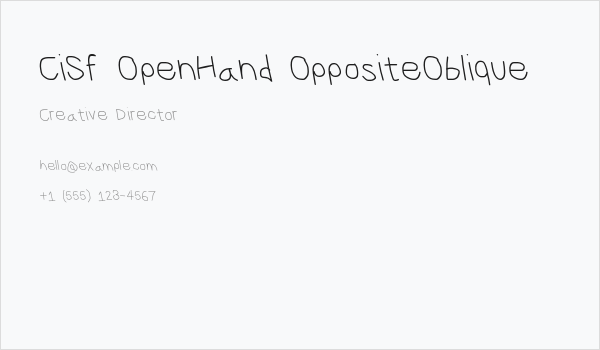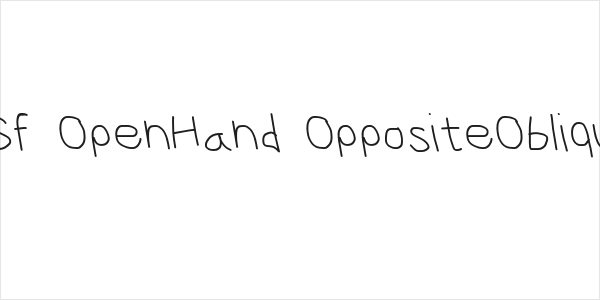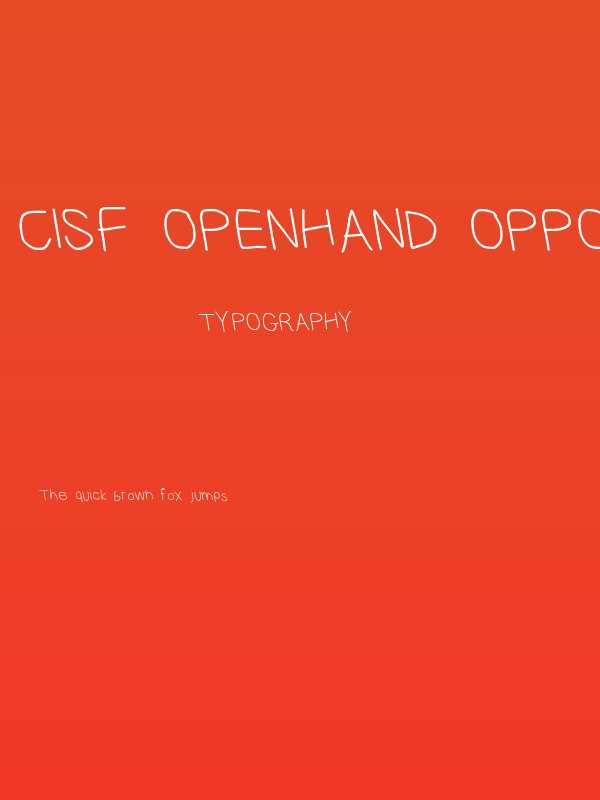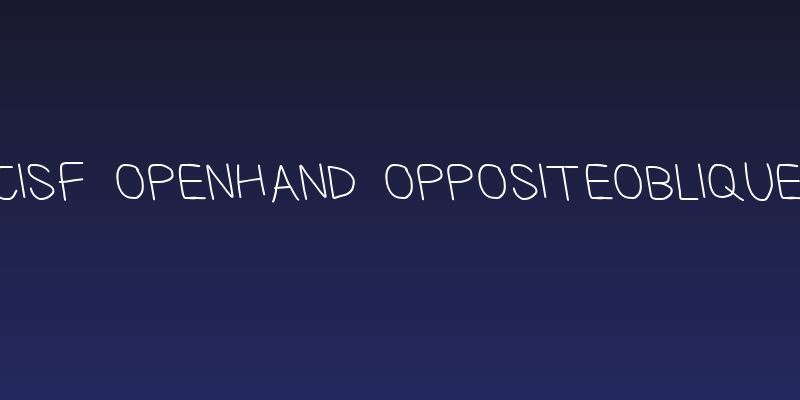
CiSf OpenHand OppositeOblique Font
CiSf OpenHand OppositeOblique Description
This font features a playful and casual handwritten style, characterized by its uneven strokes and slightly tilted letters. The uppercase and lowercase letters maintain a consistent, informal appearance, with rounded edges and a relaxed flow. The numbers and special characters follow the same whimsical design, making the font suitable for creative and informal projects. Its unique charm lies in its ability to convey a sense of approachability and friendliness, making it ideal for personal projects, children's materials, or any design that seeks to evoke a sense of warmth and individuality.
| Proposed Projects | Ideal for children's books, greeting cards, personal blogs, and informal branding. |